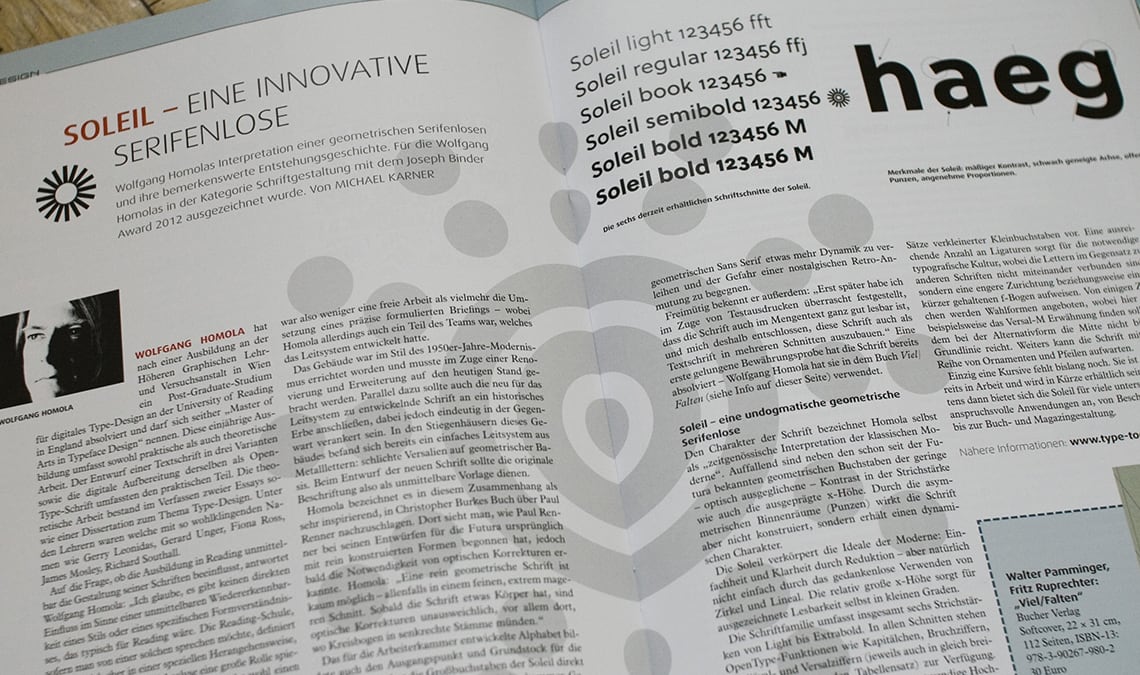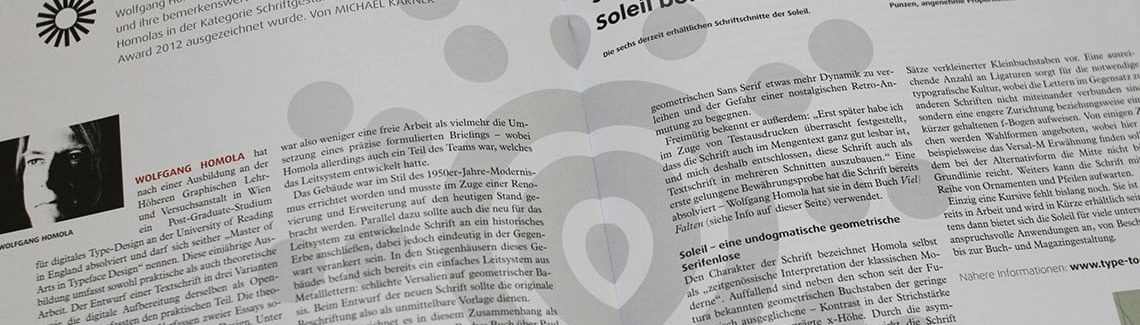
Graphische Revue
Interview with Wolfgang Homola about his typeface Soleil.
Austrian media and print magazine Graphische Revue interviewed Wolfgang Homola about his typeface Soleil. About its special conception as custom font for the Arbeiterkammer signage system and how it developed into a full functioning type family.